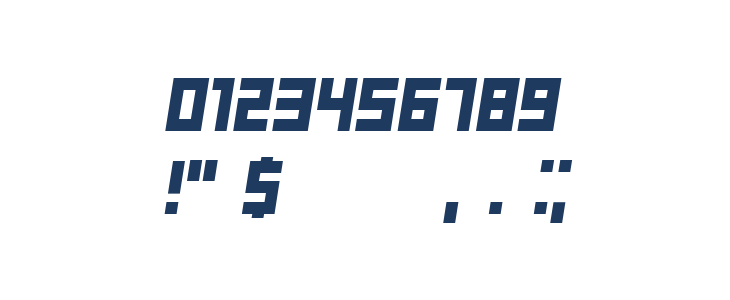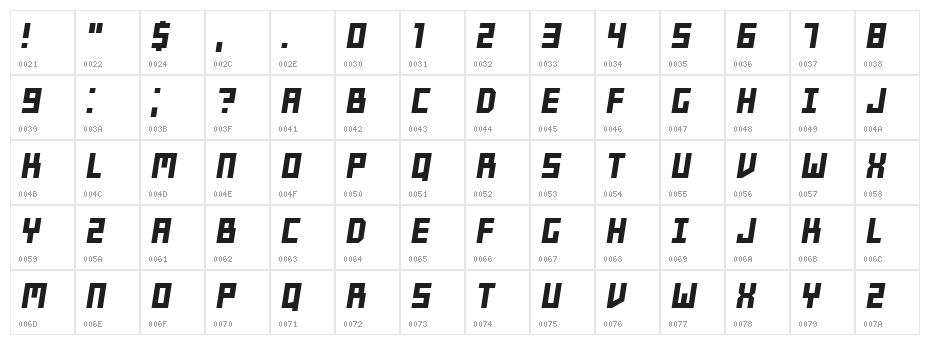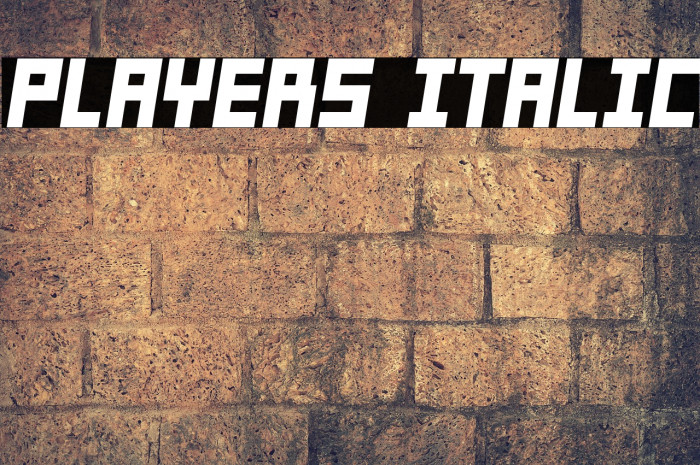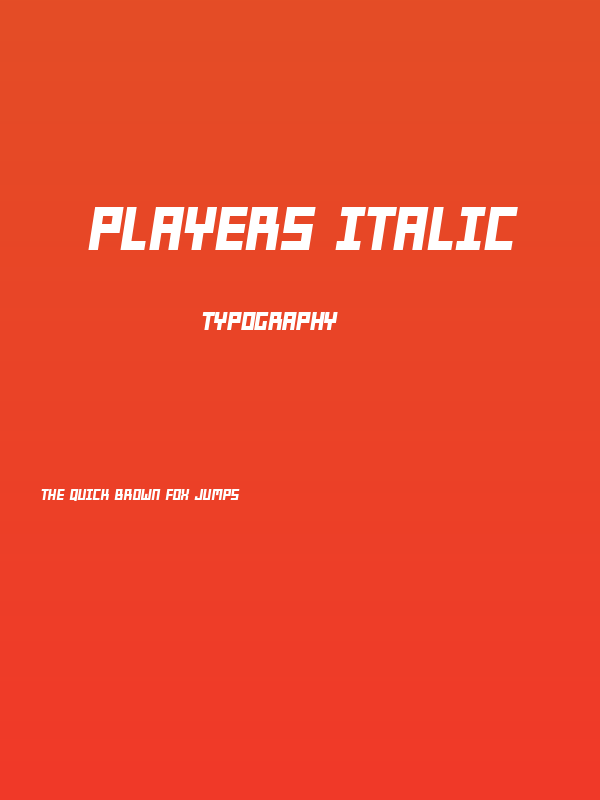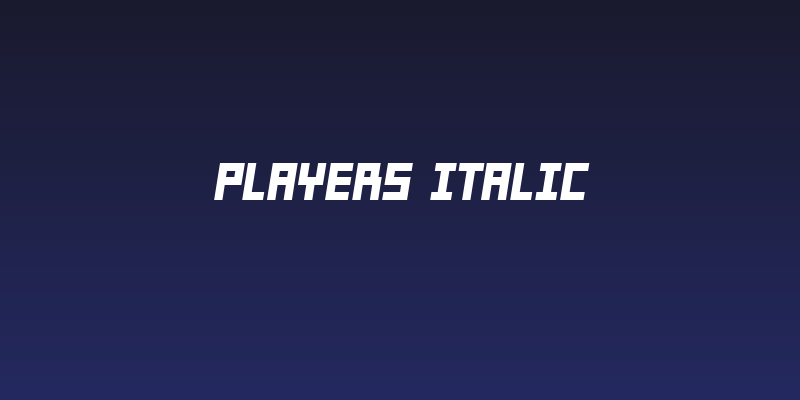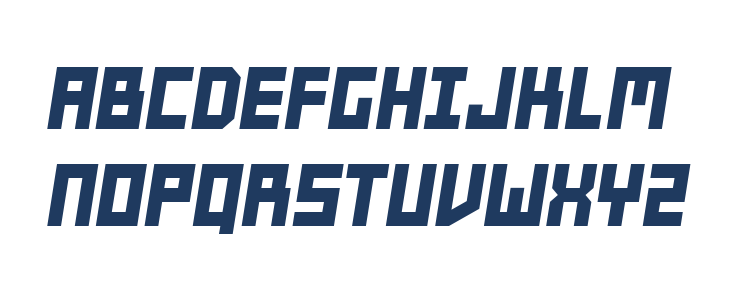
Players Italic Font
Players Italic Description
This font features a bold, italicized style with a strong geometric structure. The characters are sharply angled, giving them a dynamic and sporty appearance. The uppercase and lowercase letters maintain a consistent height, contributing to a uniform look. The numerals and special characters follow the same angular design, ensuring cohesion across all glyphs. The font's boldness and slant make it ideal for creating a sense of motion and energy, suitable for sports-related designs or modern branding projects.
| Proposed Projects | Ideal for sports branding, dynamic posters, modern logos, and energetic advertising campaigns. |